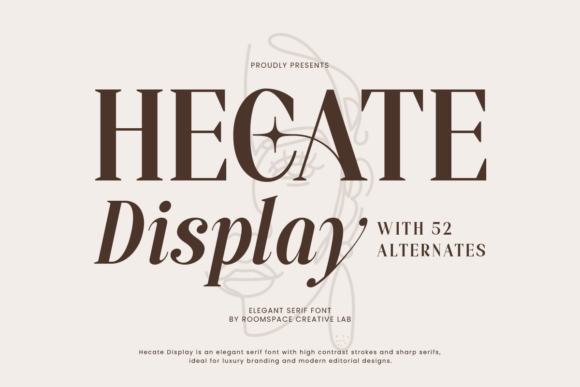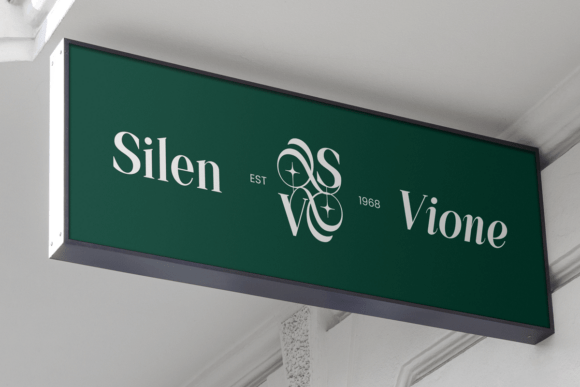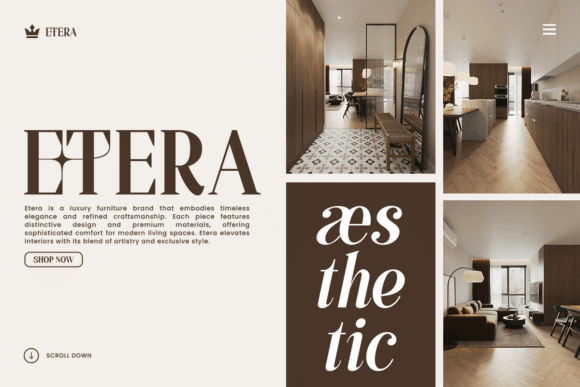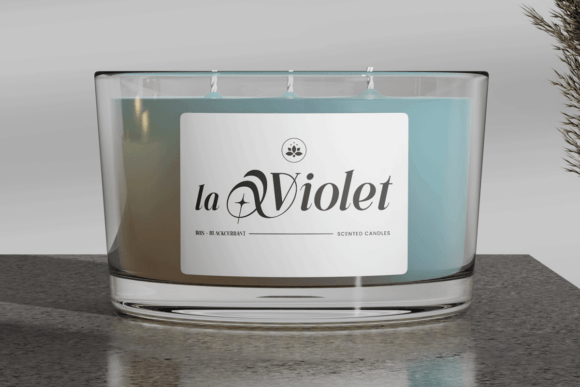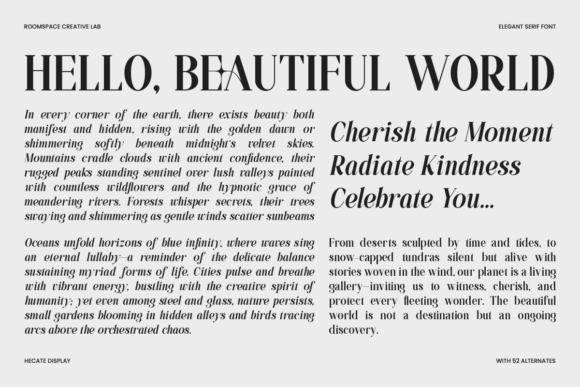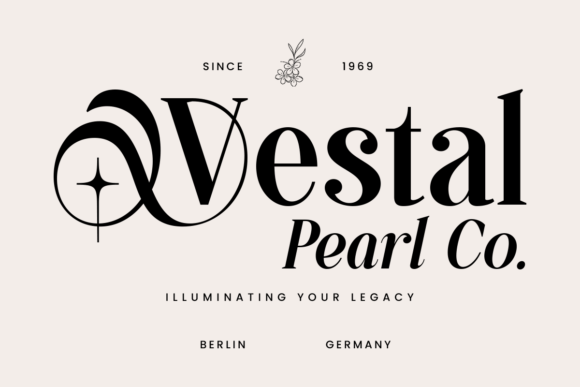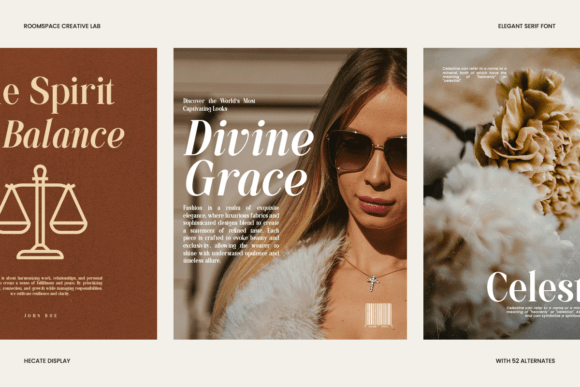
The Perfect Blend of Sophistication and Balance: Unveiling the Hecate Display Font
Have you ever been tasked with creating a visually stunning logo or title, only to find yourself stuck in a sea of font options? We’ve all been there – the pressure to create something truly exceptional can be daunting. But what if I told you that there’s a font that can elevate your designs to new heights, effortlessly combining elegance with functionality? Meet the Hecate Display Font, a refined serif typeface designed to bring sophistication and balance to your visual projects.
With its high-contrast strokes and confident serifs, the Hecate Display Font is the perfect choice for designers seeking a timeless yet modern aesthetic. Whether you’re creating luxury branding or elegant editorials, this versatile font is sure to impress. Its excellent legibility, even at large sizes, makes it a strong choice for impactful layouts, and with 52 alternates, you’ll have endless creative possibilities at your fingertips.
Hecate Display Font Key Features
- Unique Characteristics: This font features intricate, hand-drawn illustrations and ornate details, giving it a distinctive and eye-catching appearance.
- Glyph Set: The font includes a comprehensive set of glyphs, including uppercase and lowercase letters, numbers, and punctuation marks, as well as various decorative elements and symbols.
Hecate Display Font Review
Hecate Display Font is a striking font that catches the eye. ✨ Its unique blend of geometric and organic shapes creates a captivating visual experience. ✨ The font’s bold lines and subtle curves give it a sense of sophistication, making it perfect for use in titles, headings, and other prominent text elements.
One of the standout features of Hecate Display Font is its versatility. It can be used in a wide range of projects, from modern web designs to traditional print materials. ✨ Additionally, the font is highly legible, even at smaller sizes, making it an excellent choice for digital applications.
While Hecate Display Font is an excellent choice for many projects, there are some limitations to consider. ⚠️ For example, the font may not be suitable for use in small text sizes, as the bold lines can become overwhelming. ⚠️ Additionally, the font’s unique design may not be to every designer’s taste, and some users may find it too experimental or avant-garde.
In conclusion, Hecate Display Font is a unique and captivating font that can add a touch of sophistication to any project. While it may have some limitations, its versatility and legibility make it an excellent choice for designers looking to add some visual interest to their work.
- Unique blend of geometric and organic shapes
- Bold lines and subtle curves
- Highly legible, even at smaller sizes
- Versatile and suitable for a wide range of projects
Hecate Display Font is ideal for:
- Headings and titles in designs.
- Creating striking typography.
- Adding a touch of elegance to presentations and documents.